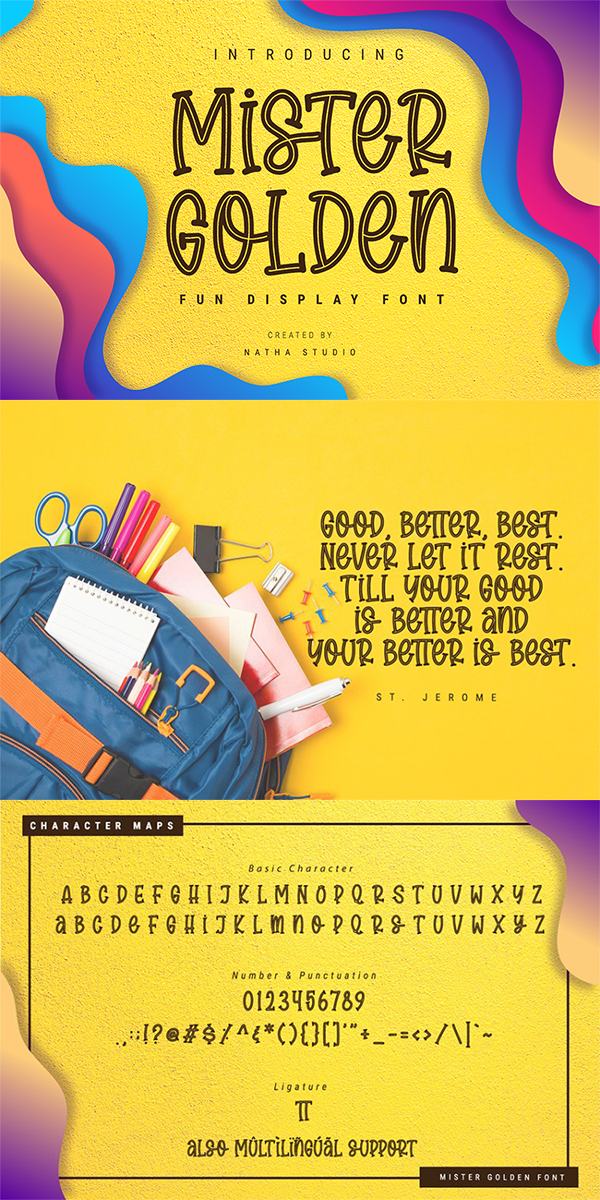
Mister Golden Font
About Mister Golden
Mister Golden is a playful display font. It brings attractive typeface. Made for any professional projects. This font will look amazing in wedding invitations and greeting cards to social media quotes, branding, and more! Outstanding in a wide range of contexts.
Featured :
-Standard Ligatures